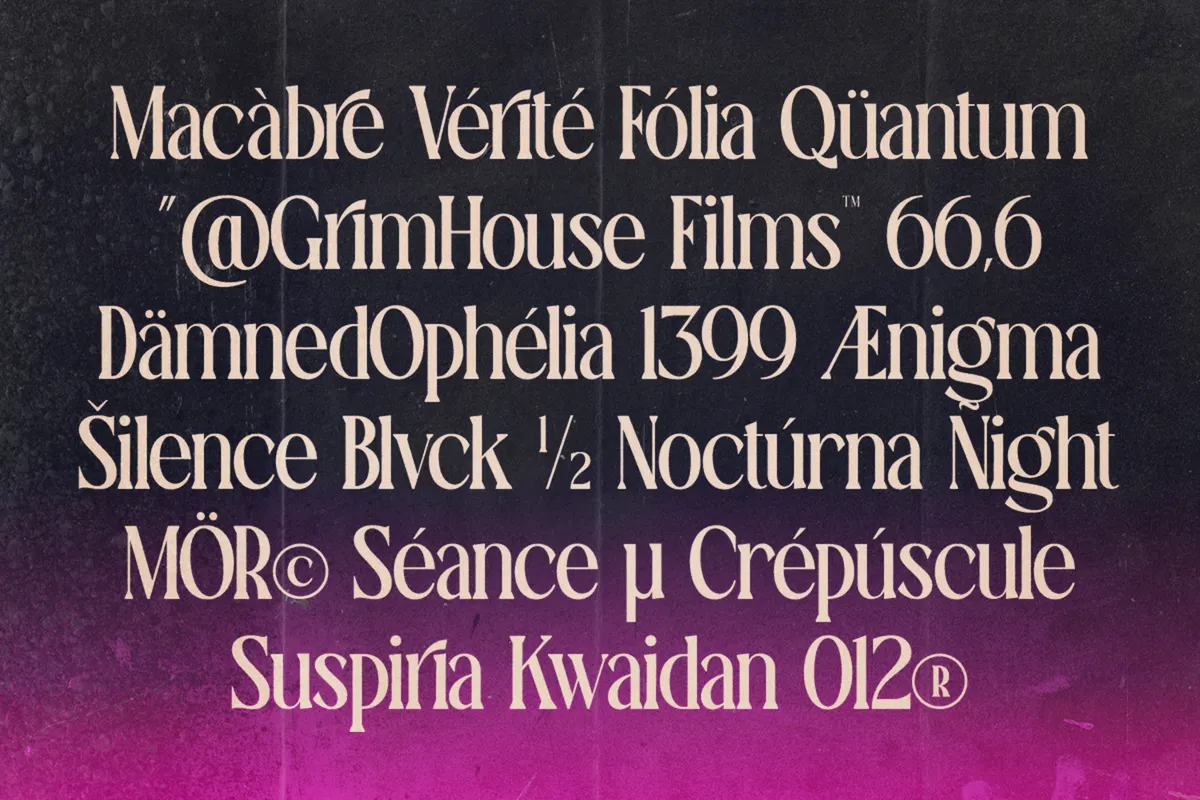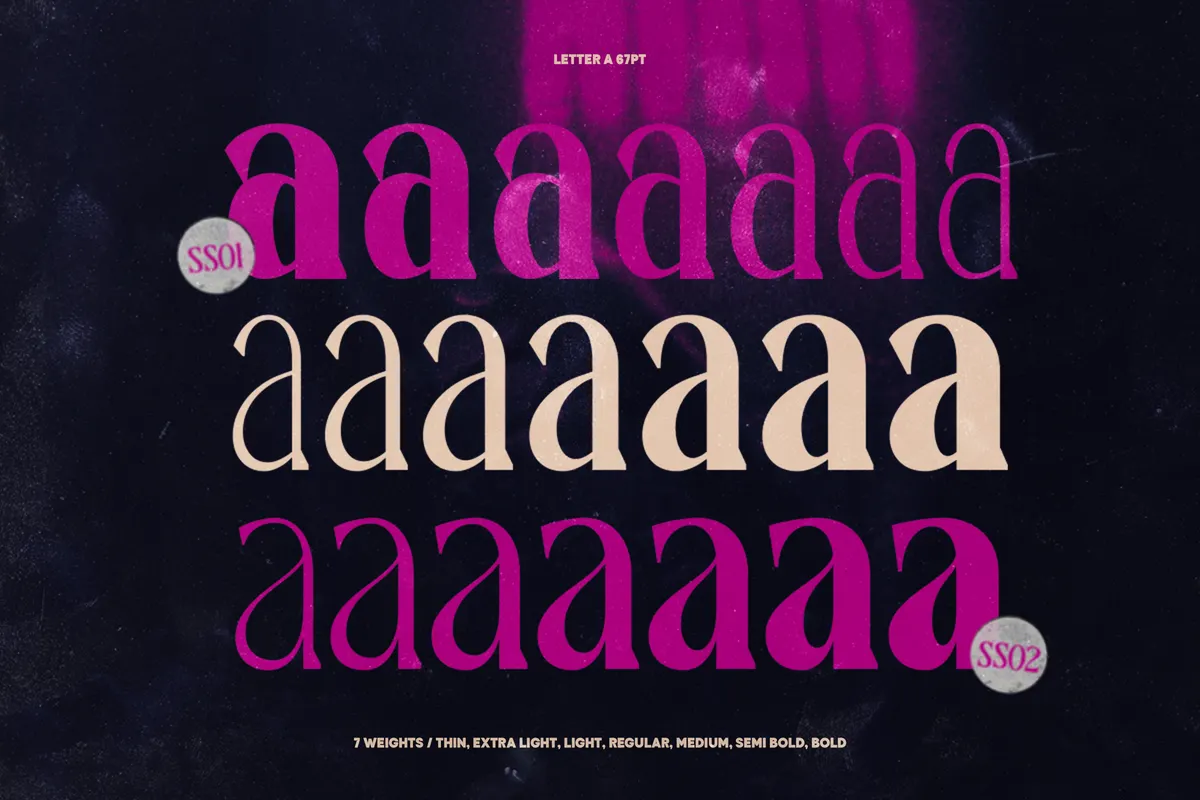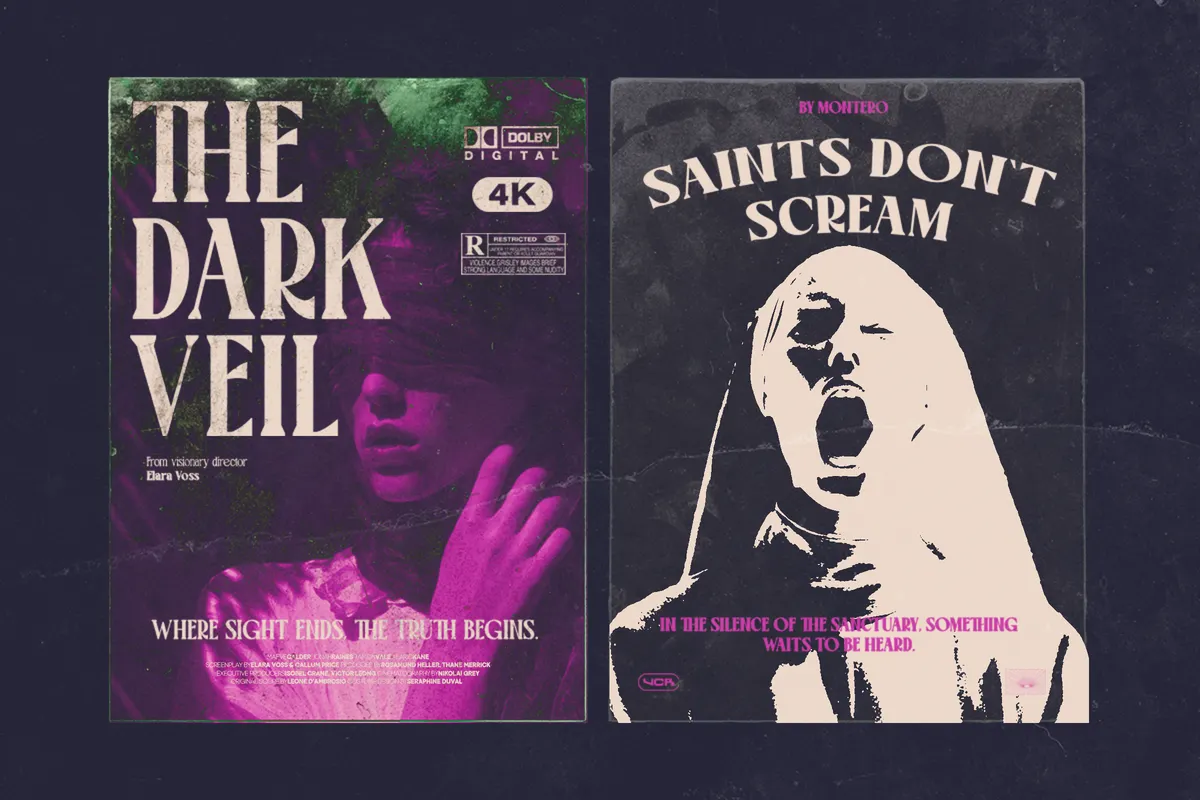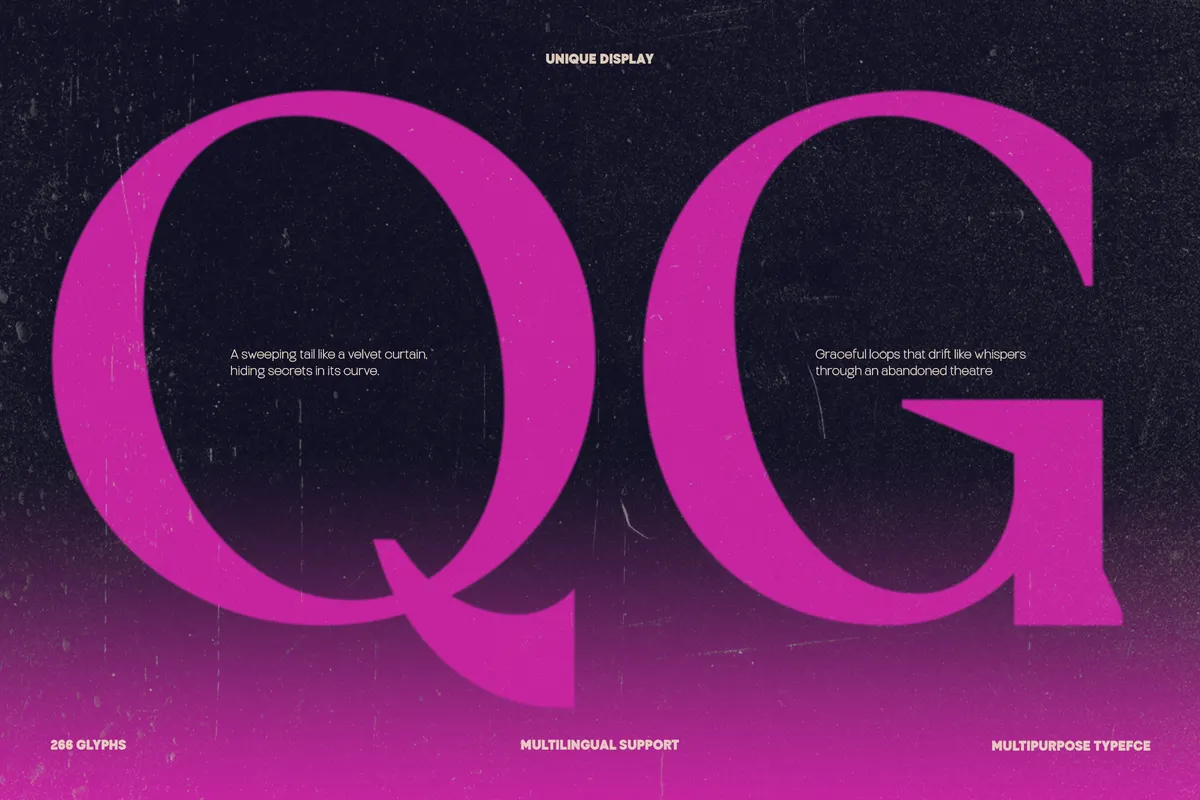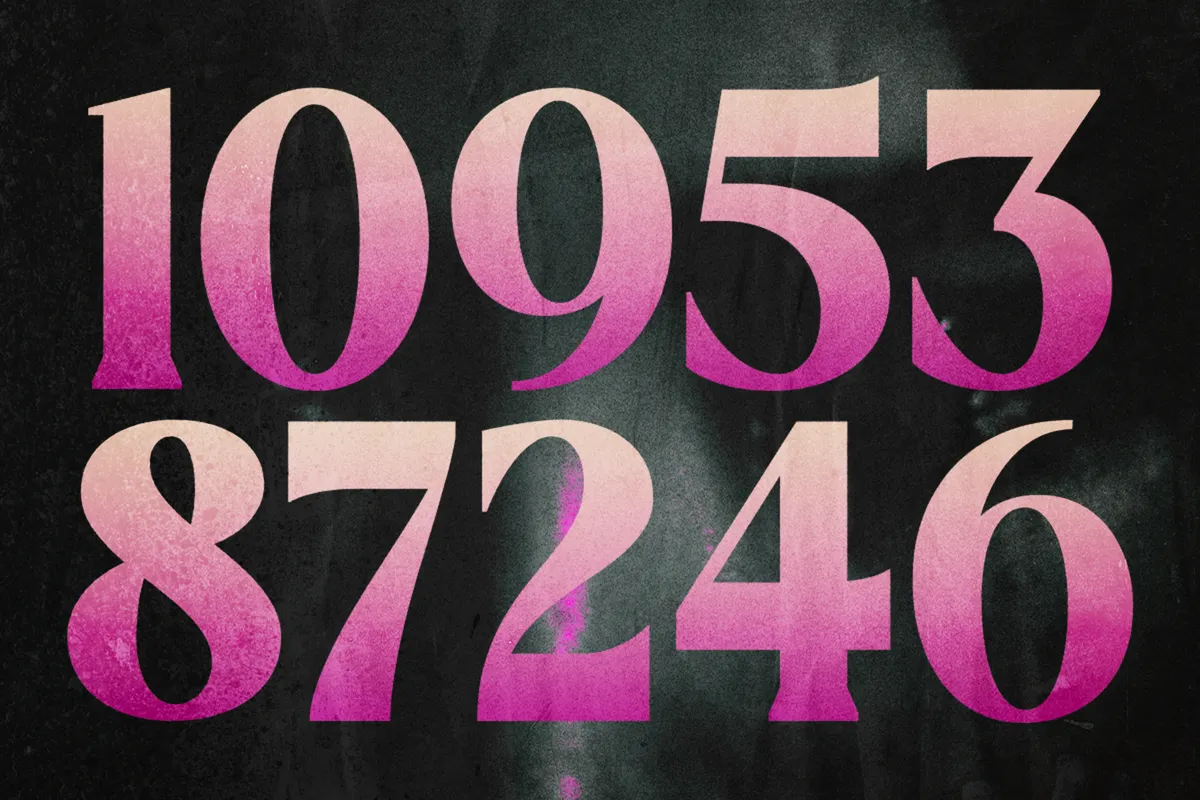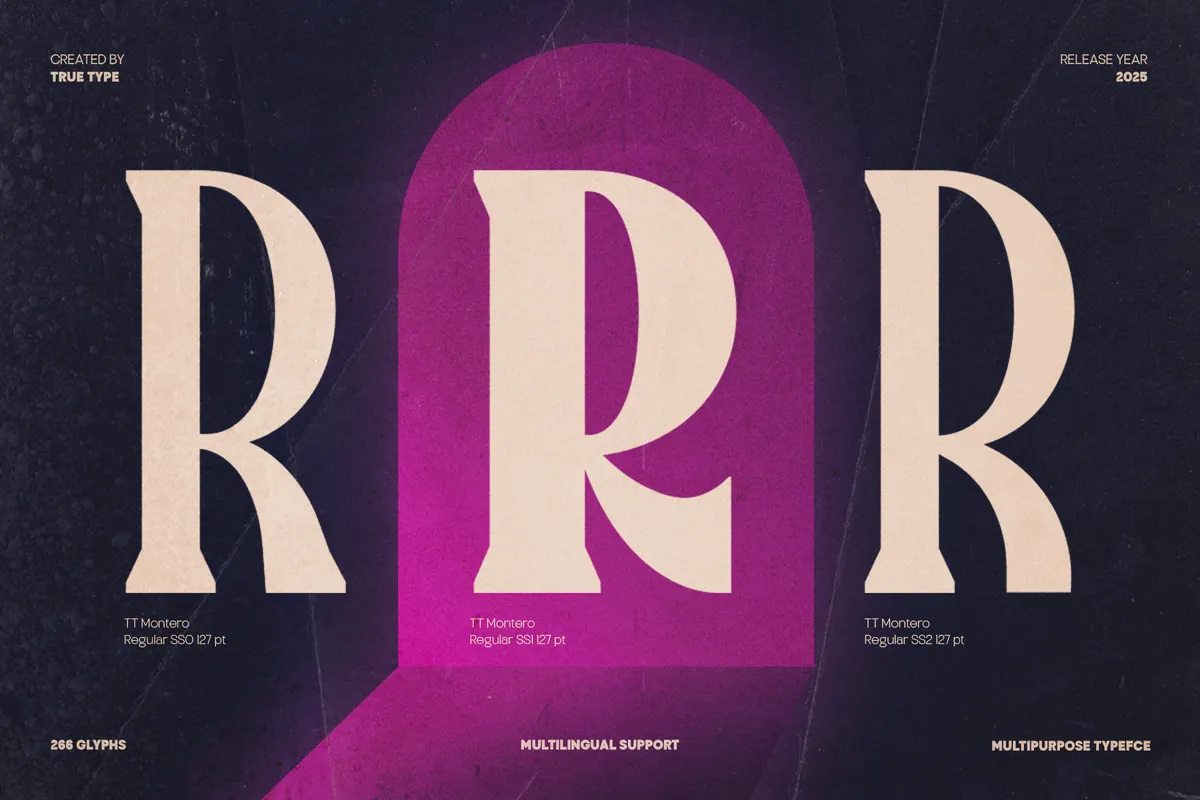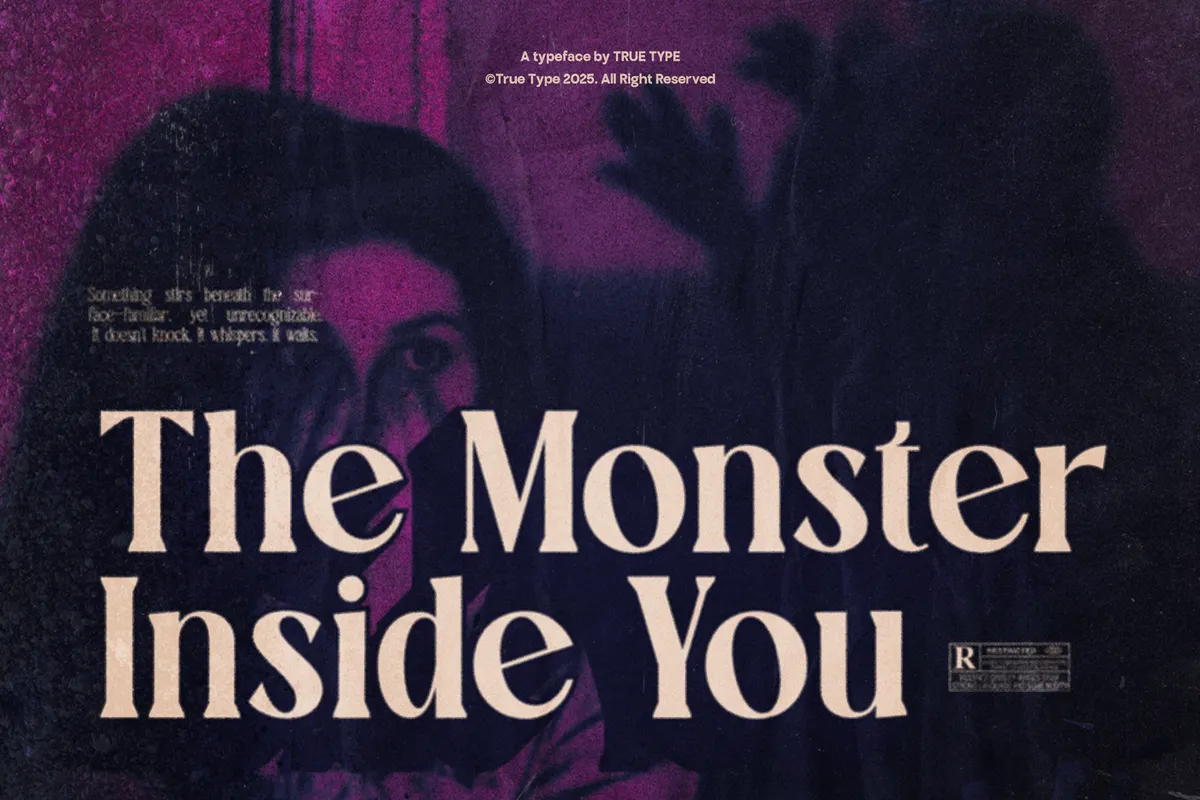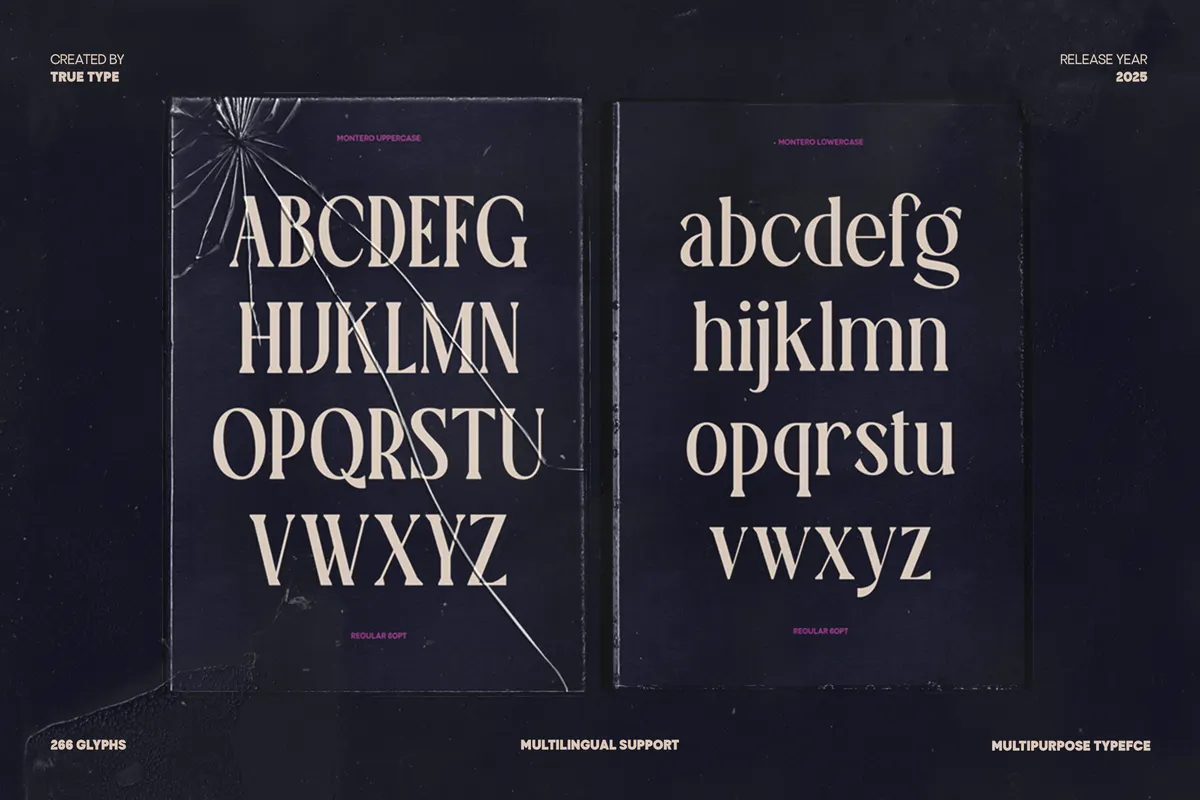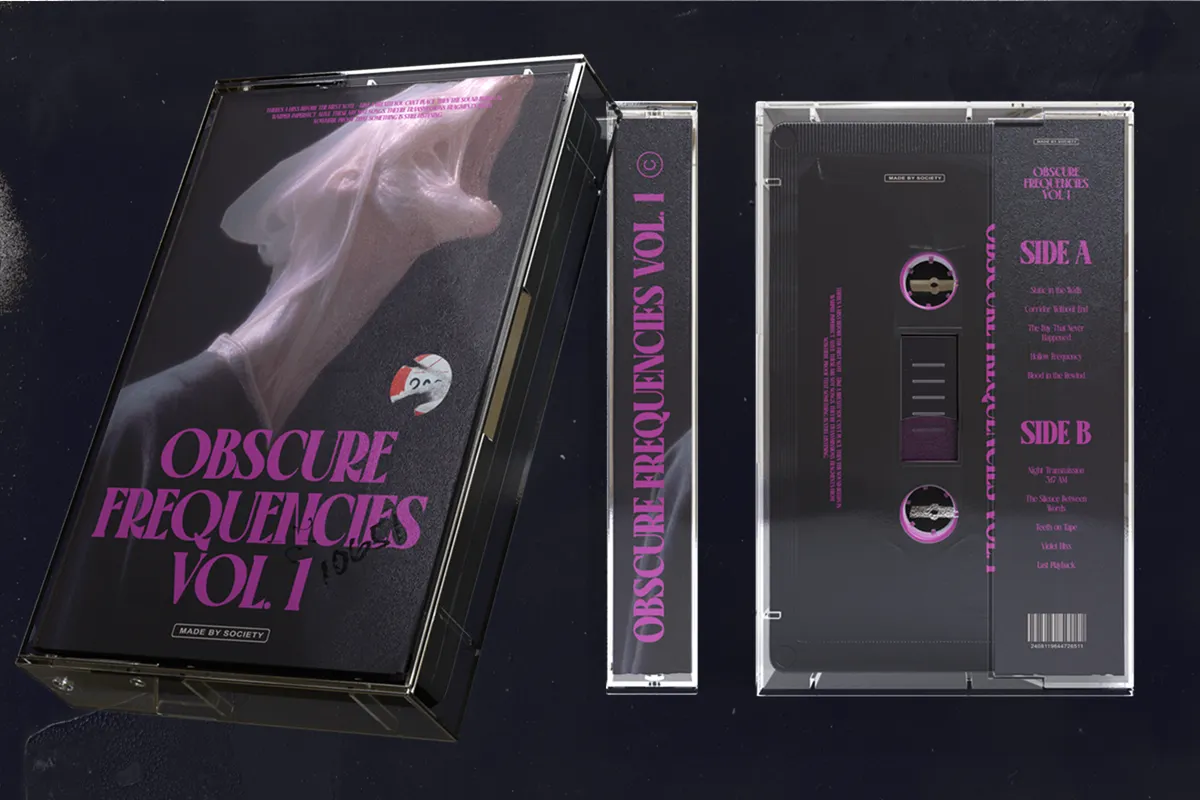
TRT Montero - Gothic Display Serif Font
Montero builds tall, high-contrast serif capitals with a dramatic, pulp-horror edge, closer to a vintage VHS cover than a quiet editorial serif. Seven weights move from a hairline Thin through a solid Bold, and a variable font covers that same range in a single file. Two stylistic alternate sets swap in looser forms for a wide run of capitals plus the lowercase a, all reachable through the OpenType panel.
Use it for horror and genre branding, movie posters, album art, cassette and vinyl packaging, and editorial headlines that want a dramatic edge.
- Uppercase & lowercase;
- Numerals, punctuation & symbols;
- 7 weights: Thin, ExtraLight, Light, Regular, Medium, SemiBold, Bold;
- Variable font covering the full weight range;
- 24 discretionary ligatures, stylistic alternates on select characters, fractions, superscript figures;